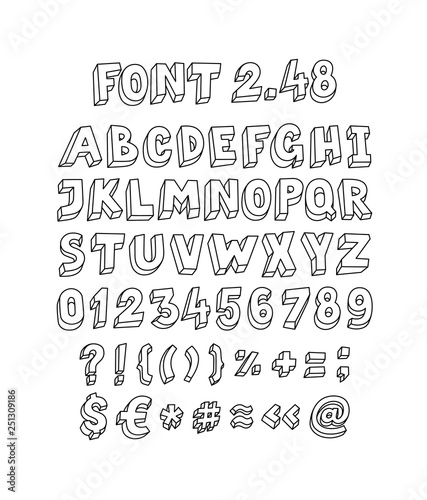
Font set of letters and symbols. Vector. Linear, contour letters. Isometry, 3D. Latin volume letters. Font for ingenious design projects. English alphabet.